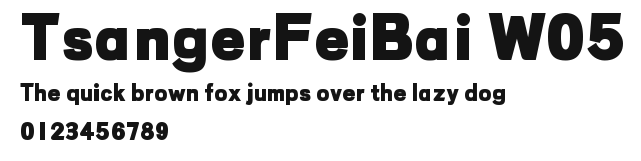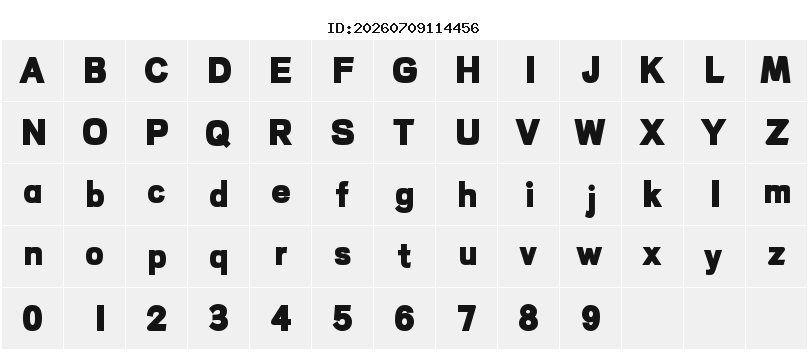
TsangerFeiBai W05 Preview
• Font Name: TsangerFeiBai W05
• Full Font Name: ???? W05
• Designer: Beijing Tsanger Character Technology Co., Ltd.
• Manufacturer: Beijing Tsanger Character Technology Co., Ltd.
About TsangerFeiBai W05.ttf
TsangerFeiBai W05.ttf is a modern, elegant sans-serif font designed for ultimate readability and visual harmony. Perfect for branding, headlines, web design, and print materials.